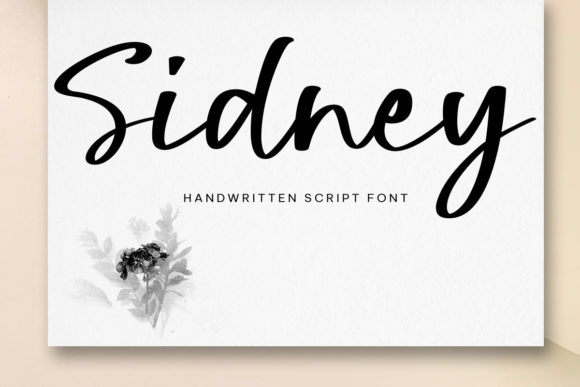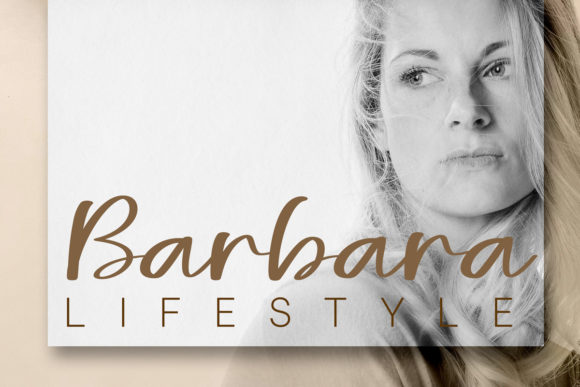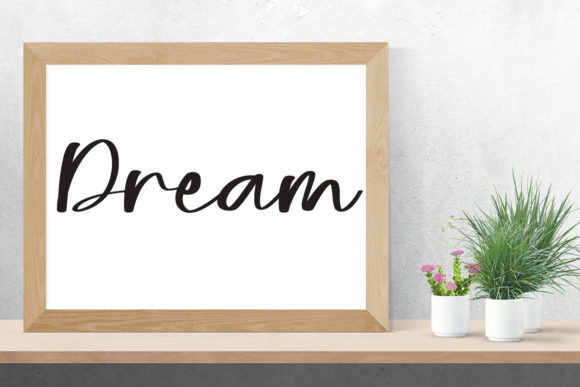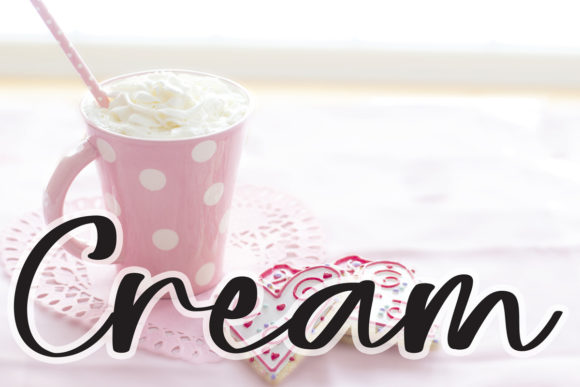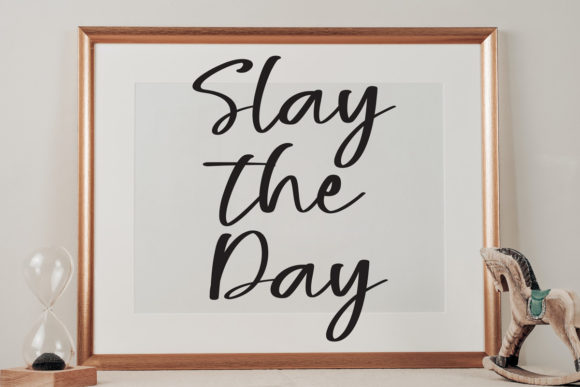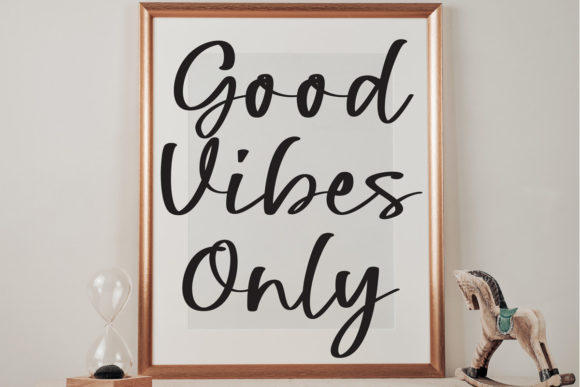
Sidney Script Font
About Sidney Script Font
Sidney is a captivating and timeless handwritten font that excels at creating eye-catching logos, branding, and quotes. With its distinctive and elegant letterforms, this font has the ability to infuse life and personality into your design projects.
The charm of Sidney lies in its graceful and flowing characters, each of which carries a unique and beautiful touch. This ensures that every word and phrase you create with this font carries a sense of individuality and style, making your designs truly stand out.
When used for logos, Sidney adds a touch of sophistication and authenticity. Its handwritten quality brings a sense of personal connection and approachability to your brand identity, helping to create a lasting impression on your audience.
For branding purposes, Sidney’s versatility shines through. Whether applied to packaging, marketing materials, or digital platforms, the font’s timeless appeal ensures that your brand message is communicated with elegance and flair.
Quotes, taglines, and headlines come alive with Sidney’s elegant strokes and delicate curves. Its ability to convey emotions and capture attention makes it an ideal choice for designs that require impactful and engaging typography.
Sidney’s enduring charm makes it a valuable asset in your design toolkit. Its adaptability to various contexts and projects allows you to explore creative possibilities and experiment with different design elements.
In essence, Sidney is more than just a font; it’s a tool that breathes life into your creative endeavors. Its lovely and timeless design, combined with its unique and beautiful touch, makes it a powerful choice for elevating your logos, branding, and quotes to new heights of visual appeal and impact.